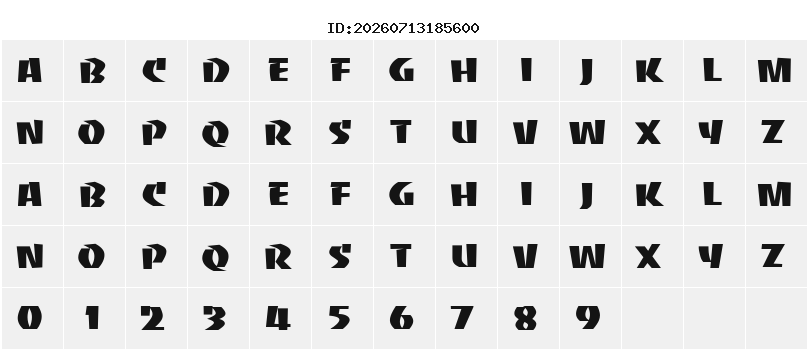
BaccaratUprightWide Preview
• Font Name: BaccaratUprightWide
• Font ID: Weatherly Systems, Inc. BaccaratUprightWide Regular
• Full Font Name: BaccaratUprightWide Regular
• Version: The WSI-Fonts Professional Collection
• PostScript Name: BaccaratUprightWide
• Character Count: 228
About BaccaratUprightWide.ttf
BaccaratUprightWide.ttf is a modern, elegant sans-serif font designed for ultimate readability and visual harmony. Perfect for branding, headlines, web design, and print materials.